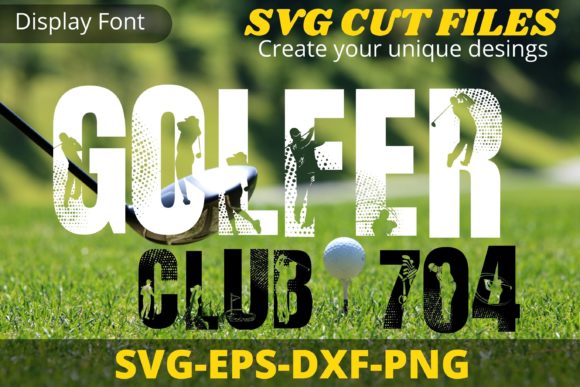
Are you searching for the best fonts for display text that will take your designs to the next level? Look no further than Golf Font - a cool, useful, and unique decorative font that will make your projects stand out!
Created by tattooworker, Golf Font is the perfect addition to any design project. Its decorative style is versatile and can be used for a wide range of applications. Whether you need to create blog posts, logos, branding, ads, invitations, greeting cards, planners, photo albums, or decorations, Golf Font has got you covered.
With Golf Font, you can unleash your creativity and add a touch of elegance and sophistication to your designs. Its captivating style will instantly grab the attention of your audience and make your message stand out.
Don't settle for boring fonts that fail to capture your unique vision. Choose Golf Font and elevate your designs to a whole new level. It's time to make a statement and leave a lasting impression with the best fonts for display text.